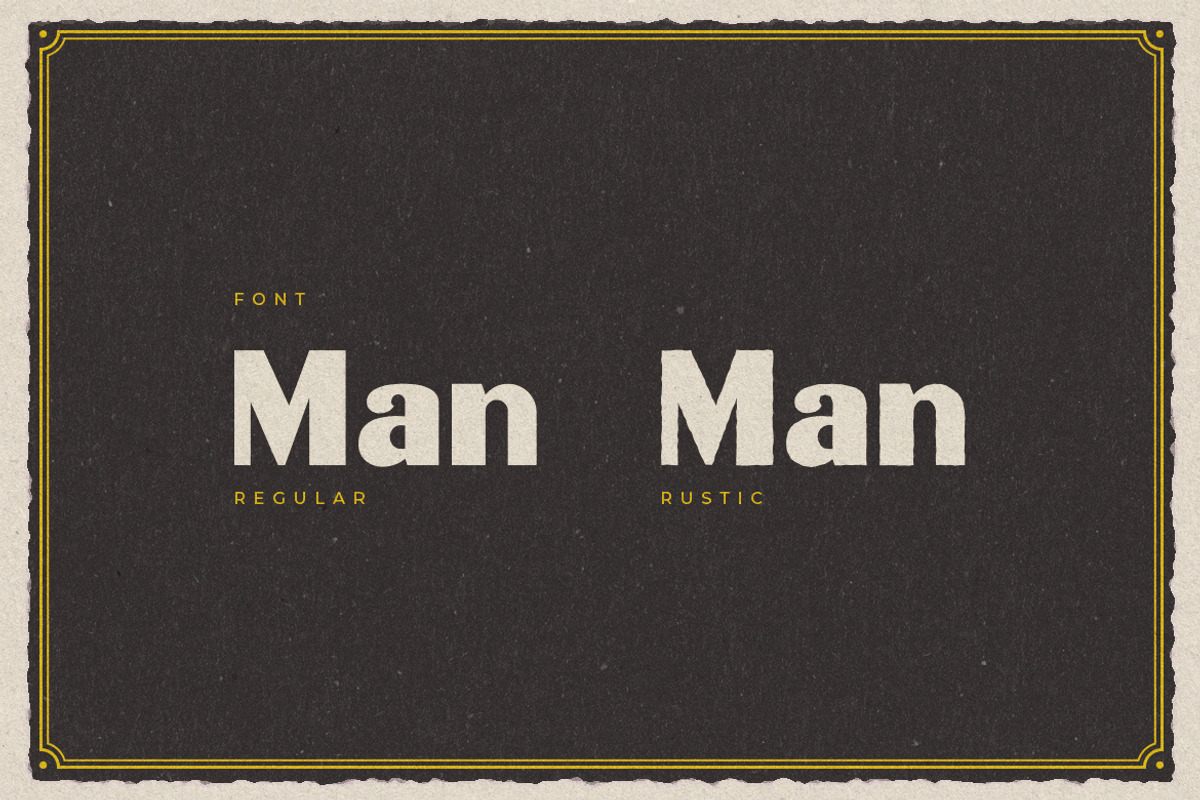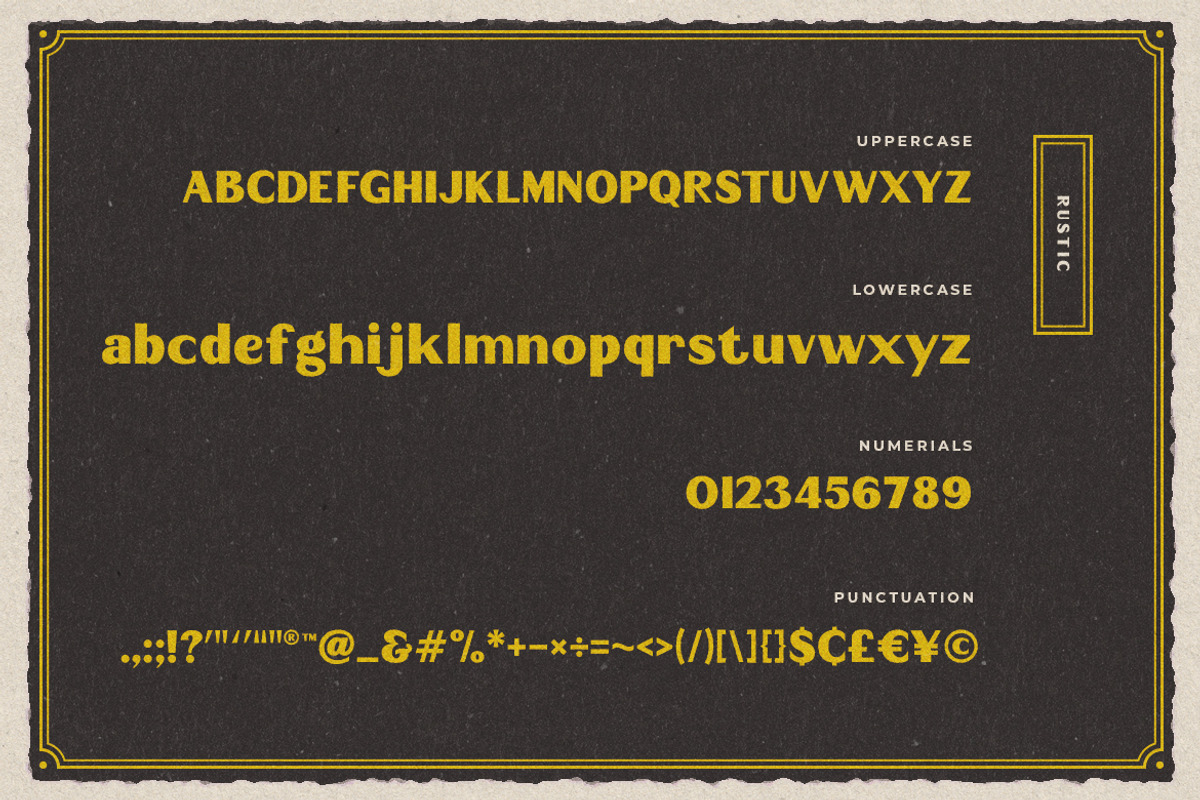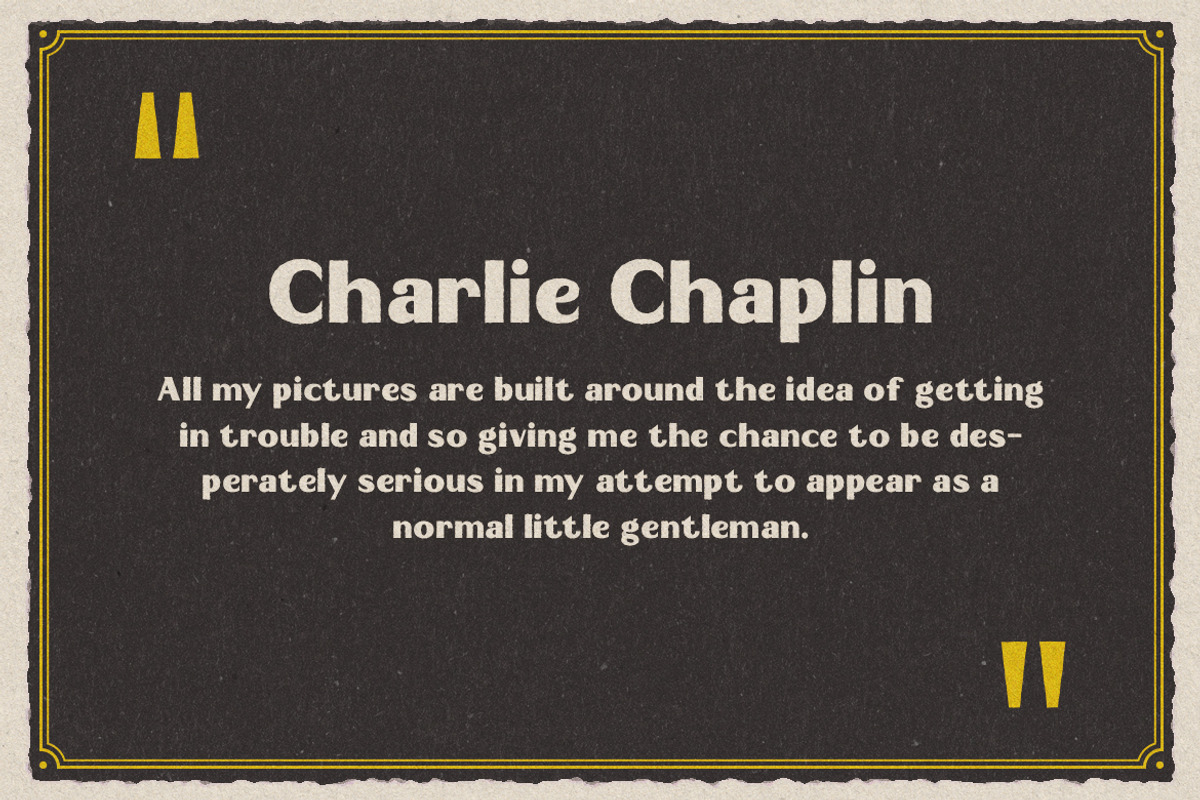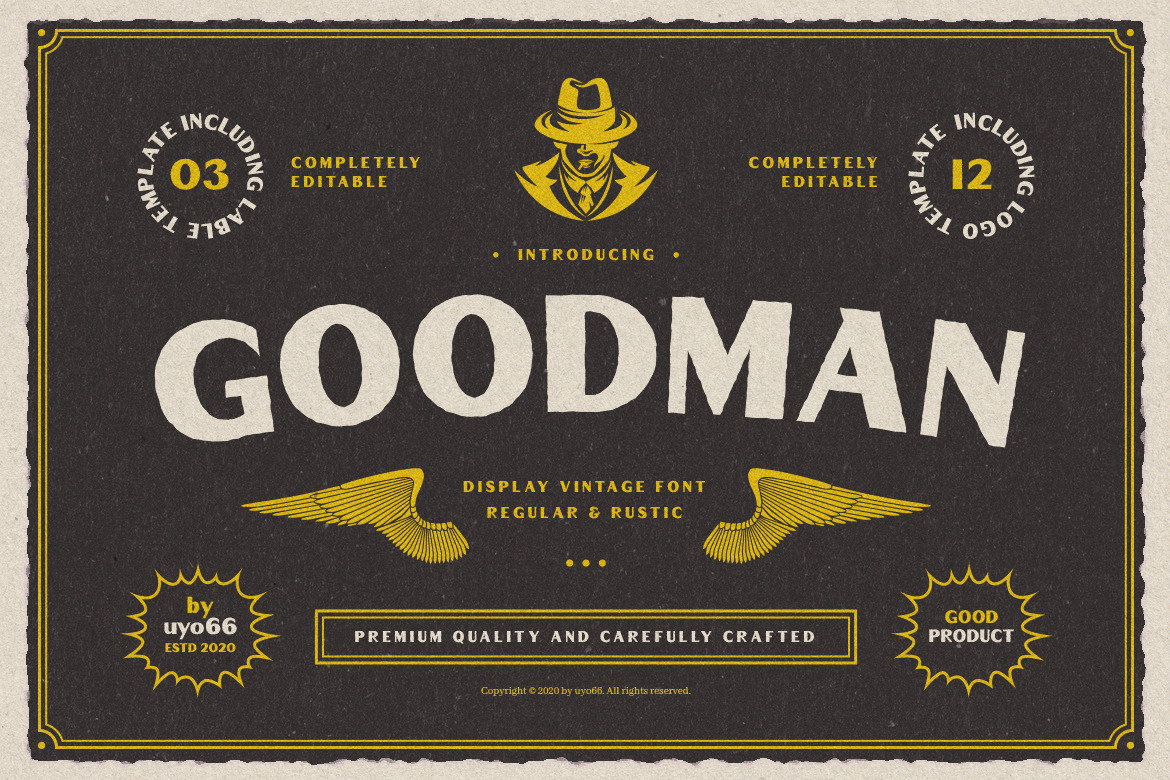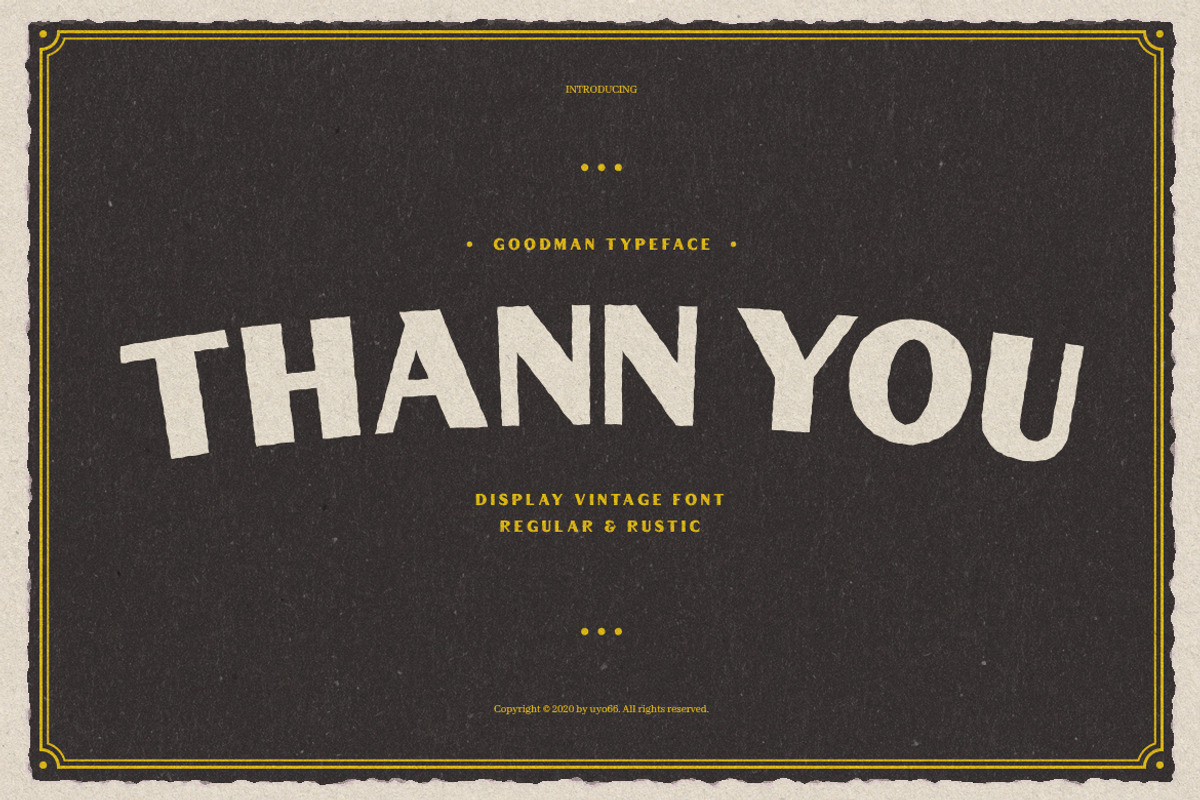
Goodman - Retro Vintage Typeface
Introducing a Retro vintage look layered label typeface named "Goodman".
Goodman is Display font perfect for branding projects, logo, wedding designs, social media posts, advertisements, product packaging, product designs, label, photography, watermark, invitation, stationery, Badge, poster, t-shirt, label, logo etc.